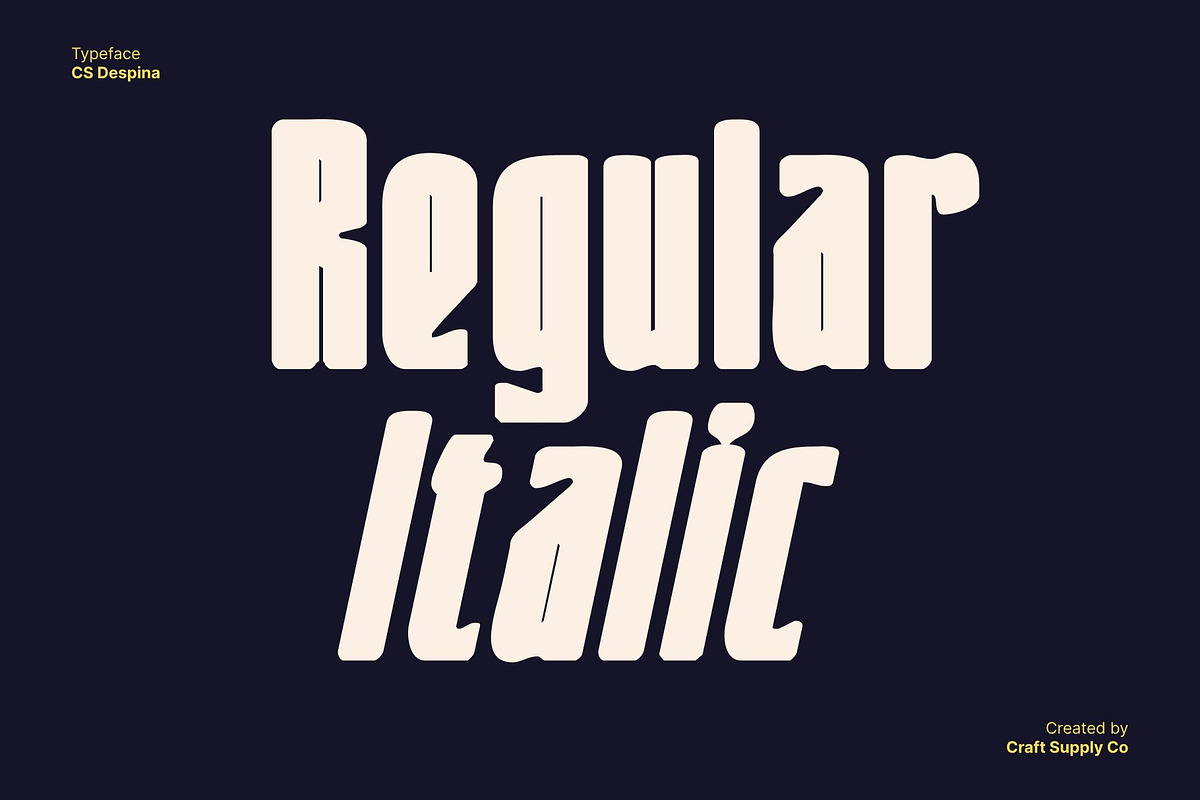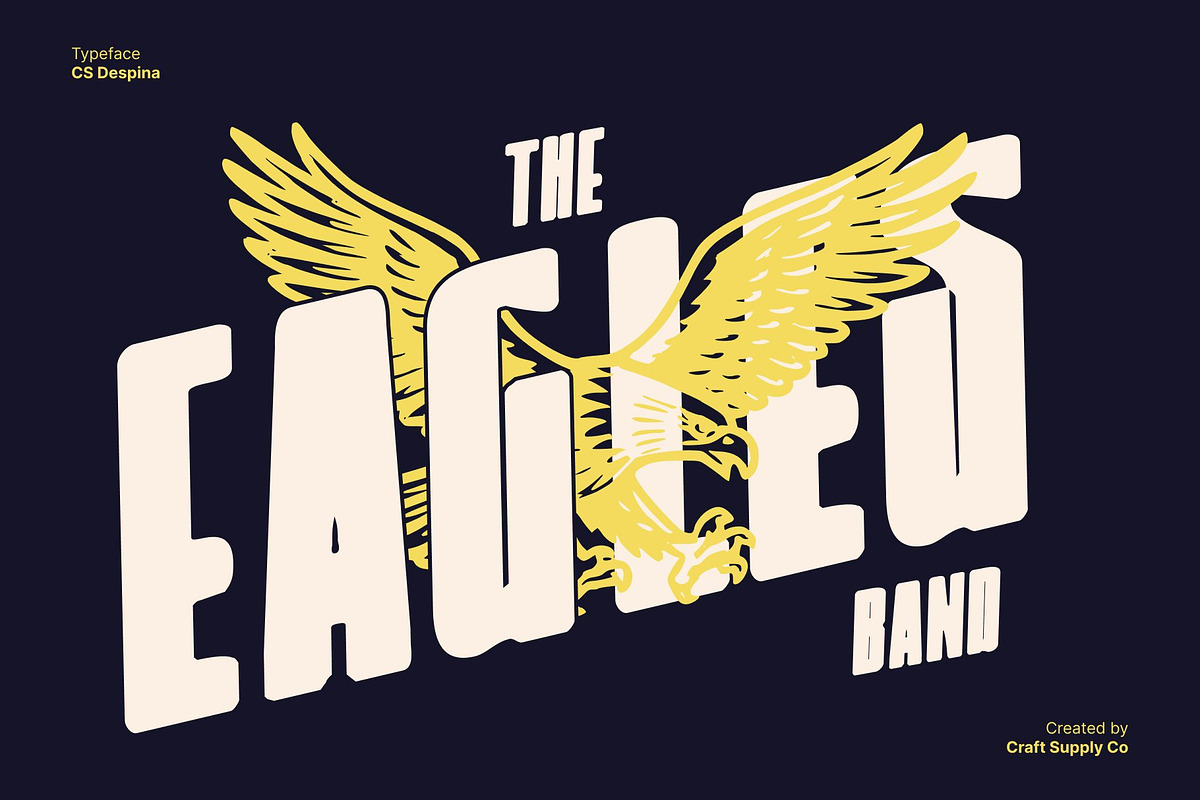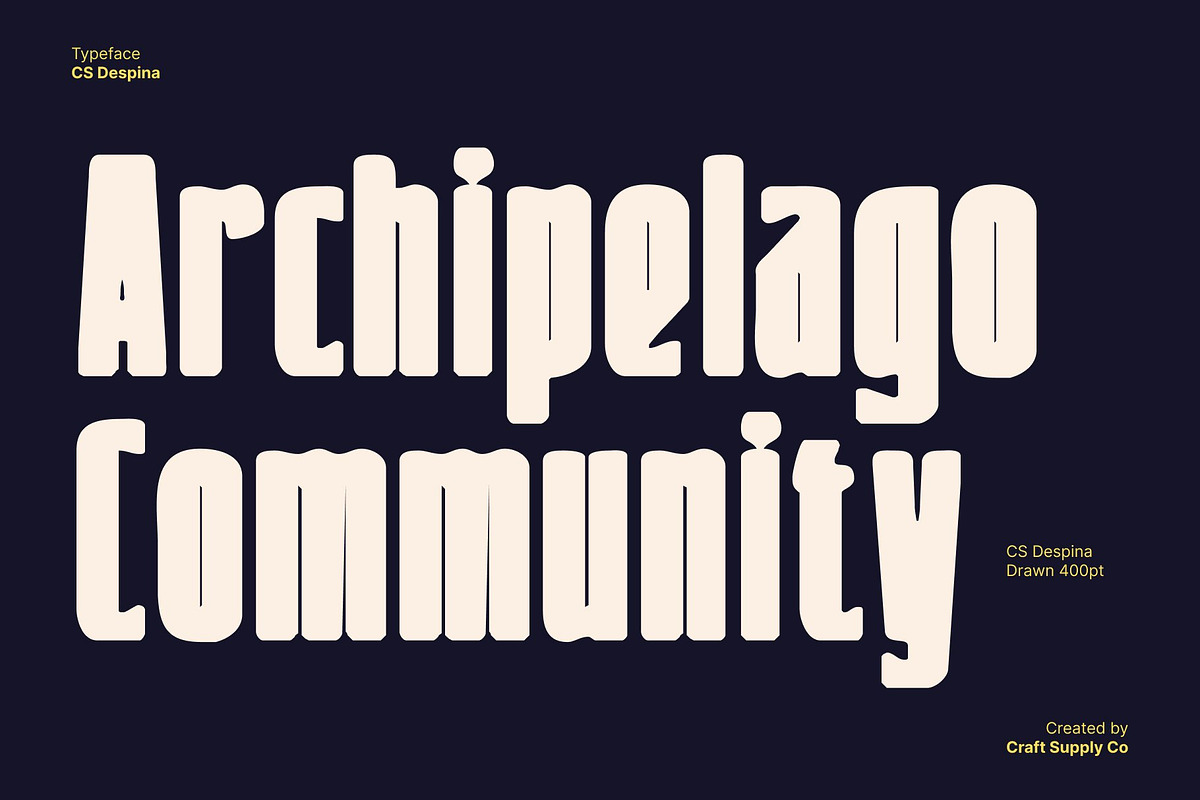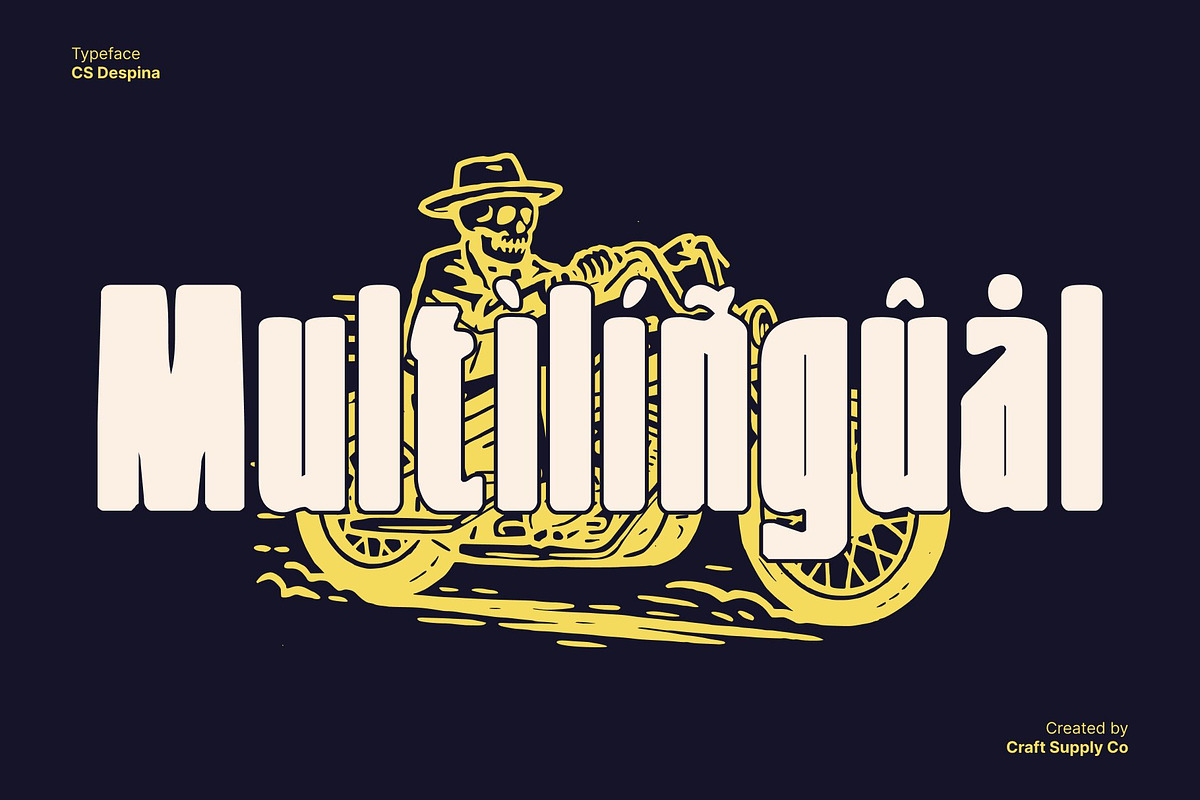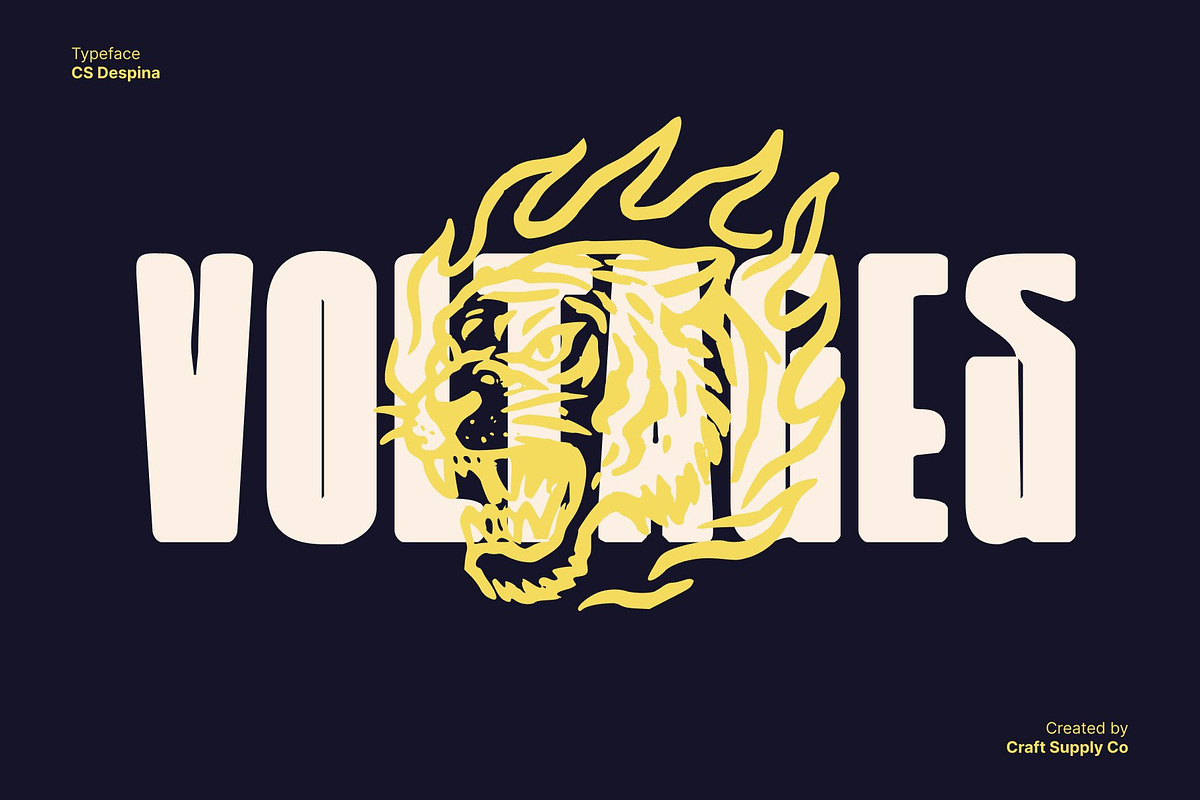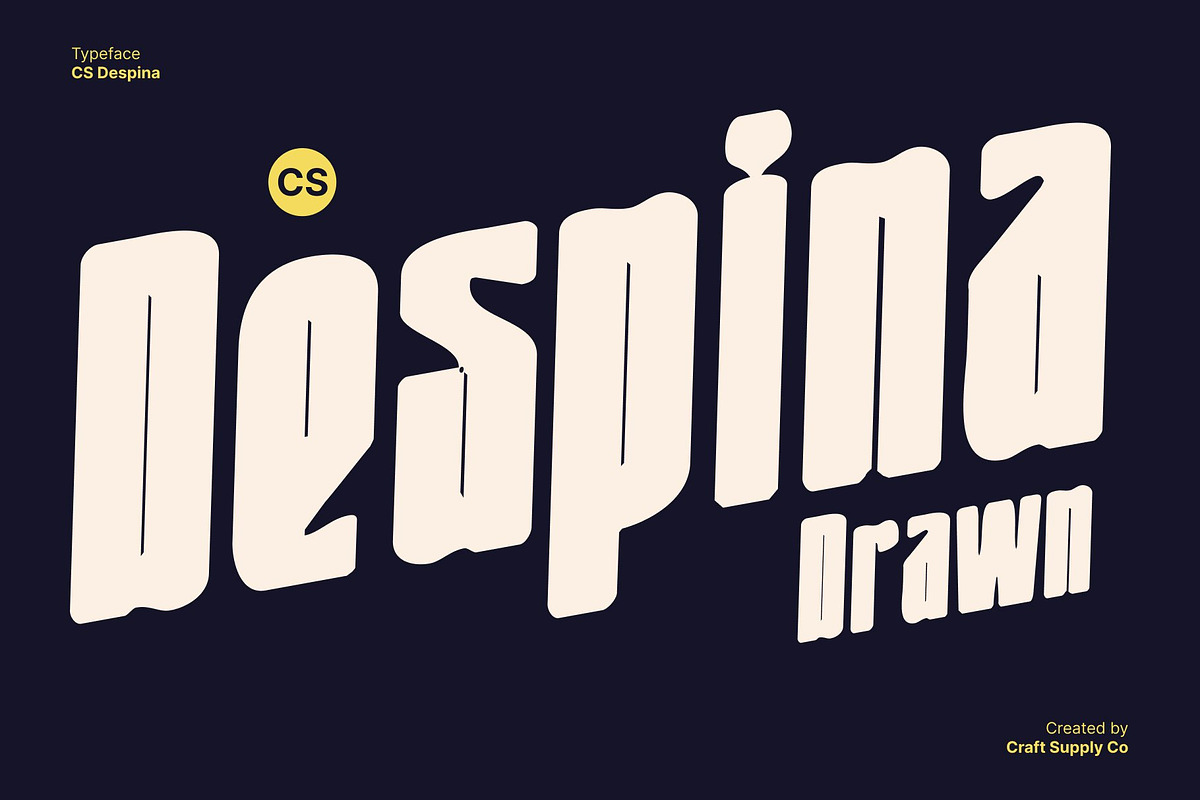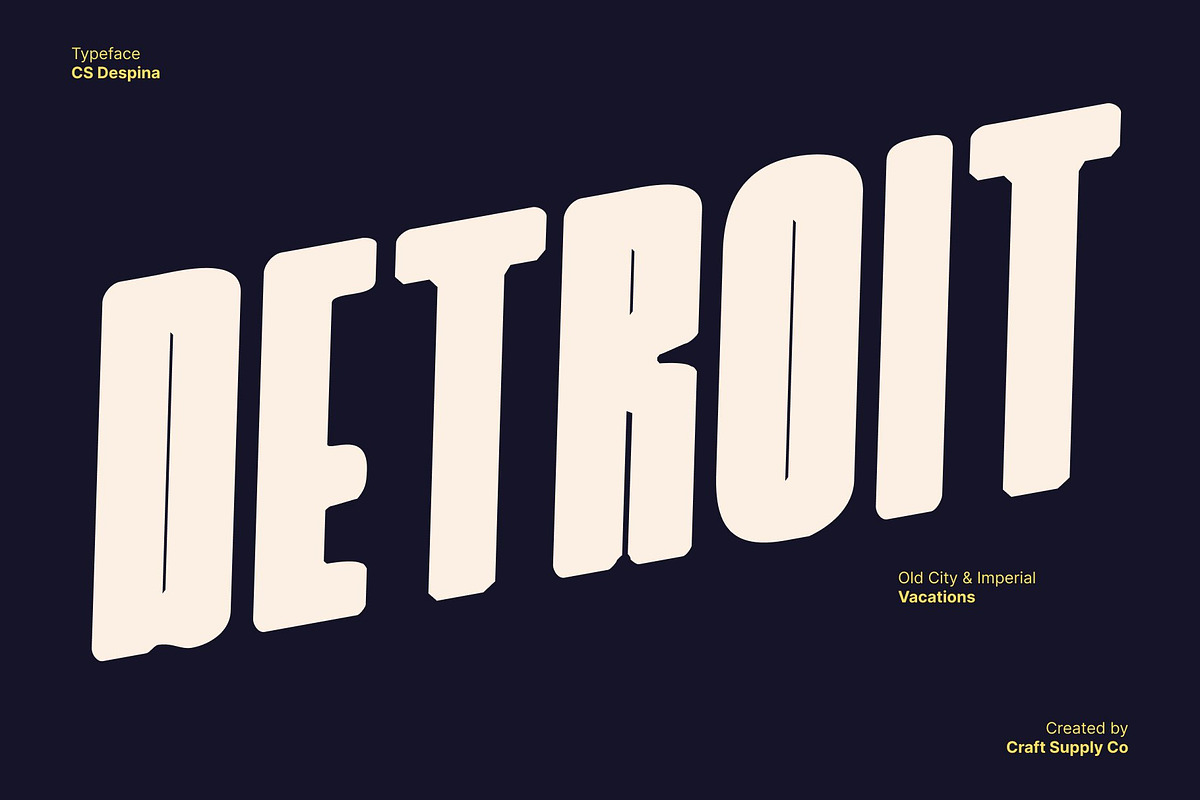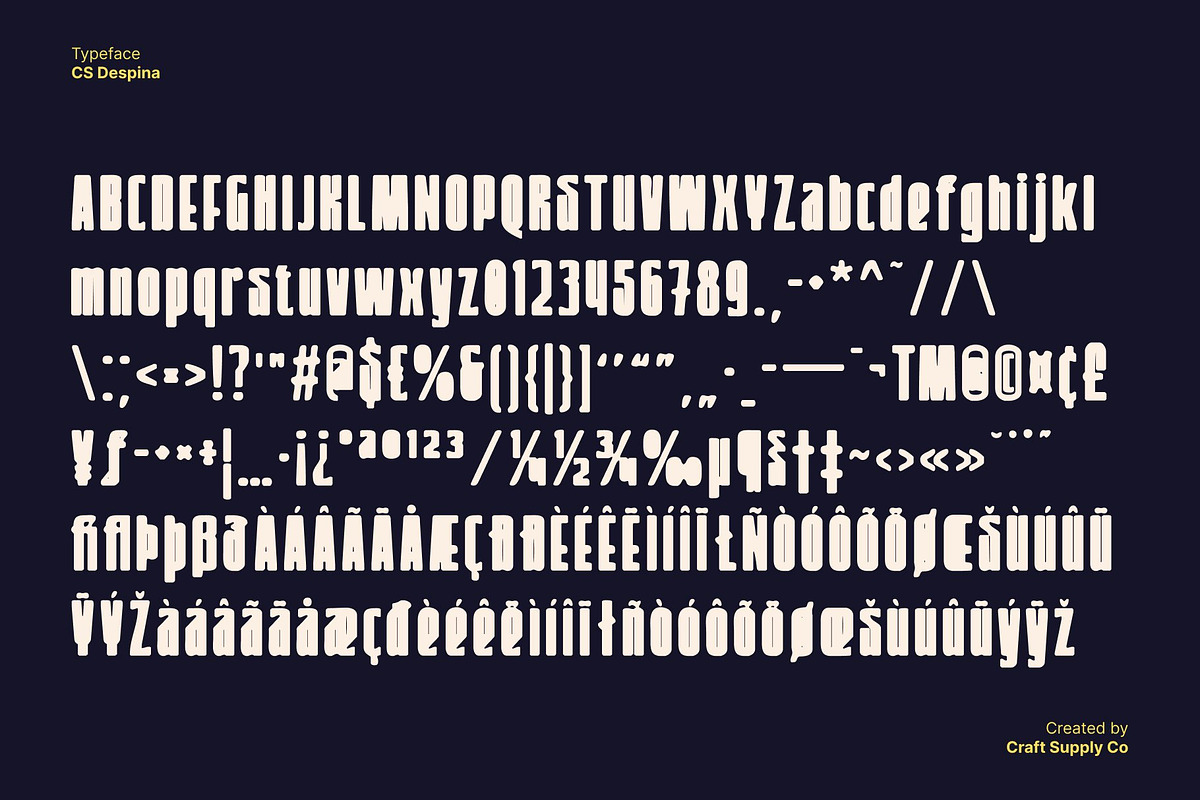
CS Despina Drawn
CS Despina Drawn – Industrial Strength with a Handcrafted Edge
Condensed Sans Serif with Bold Character This is a powerful sans serif font defined by its condensed, bold structure and industrial design. Each letter is built with precision and purpose, exuding strength and confidence. Its geometric foundation and tight proportions make it an excellent choice for designs that demand impact and clarity.
Drawn Effect for Natural Boldness What sets this font apart is its unique drawn texture, which gives the typeface a handcrafted feel. The subtle ink-like irregularities soften its rigid, industrial form adding warmth and depth without losing power. This natural drawn effect makes the font feel both mechanical and human, creating a striking visual balance.
Strong and Technical Design Style The technical precision of this font gives it a masculine and modern edge, while its handcrafted finish adds personality and authenticity. This fusion of structure and artistry makes it perfect for designs that aim to appear bold, innovative, and grounded in craftsmanship.
Perfect for Modern and Eye-Catching Projects Ideal for posters, branding, headlines, and creative layouts, this font delivers maximum impact with minimal effort. Its condensed shape, industrial aesthetic, and drawn texture make it a versatile font for designers who want to combine bold modernism with organic appeal strong, stylish, and impossible to ignore.